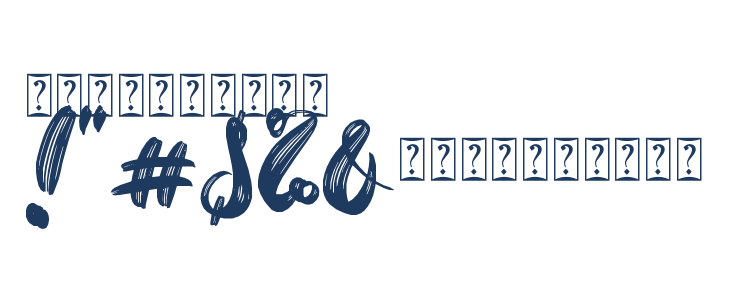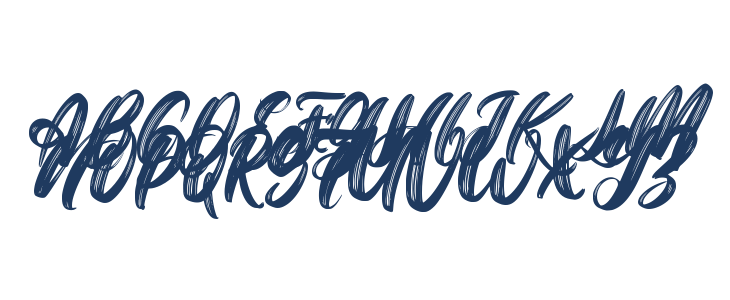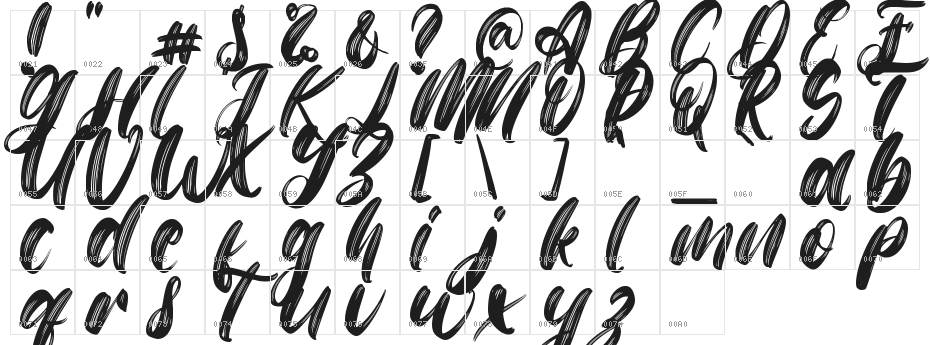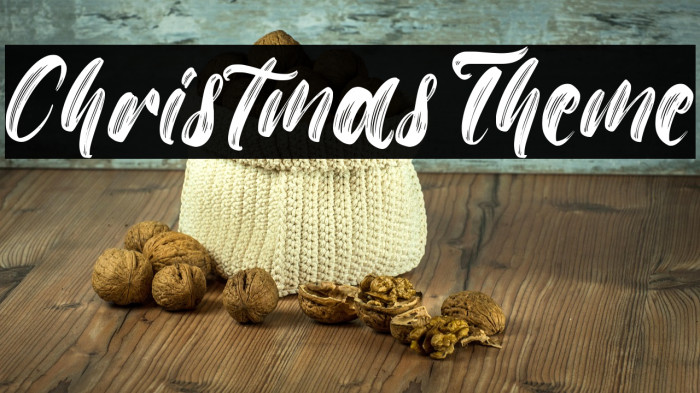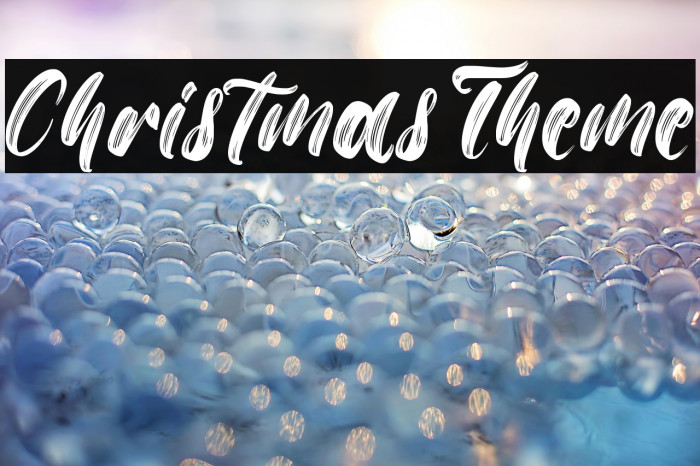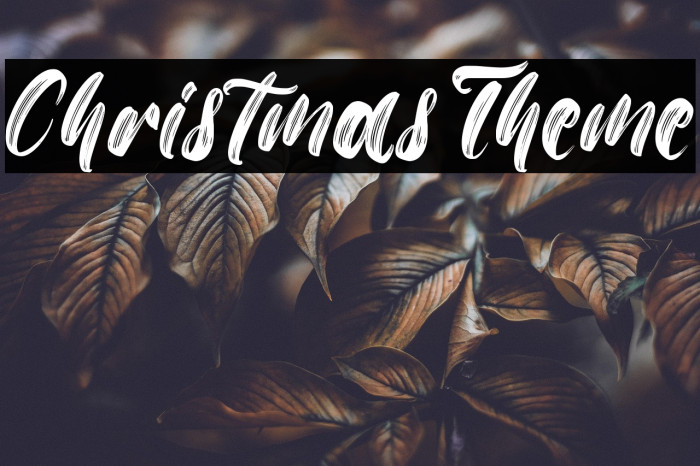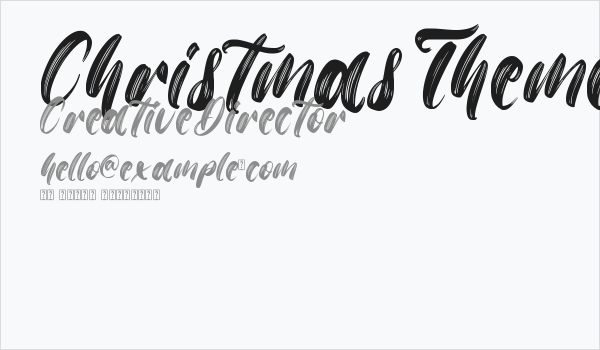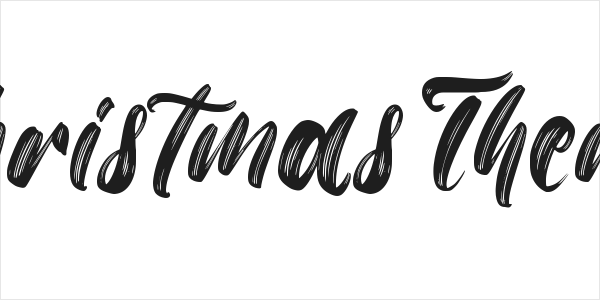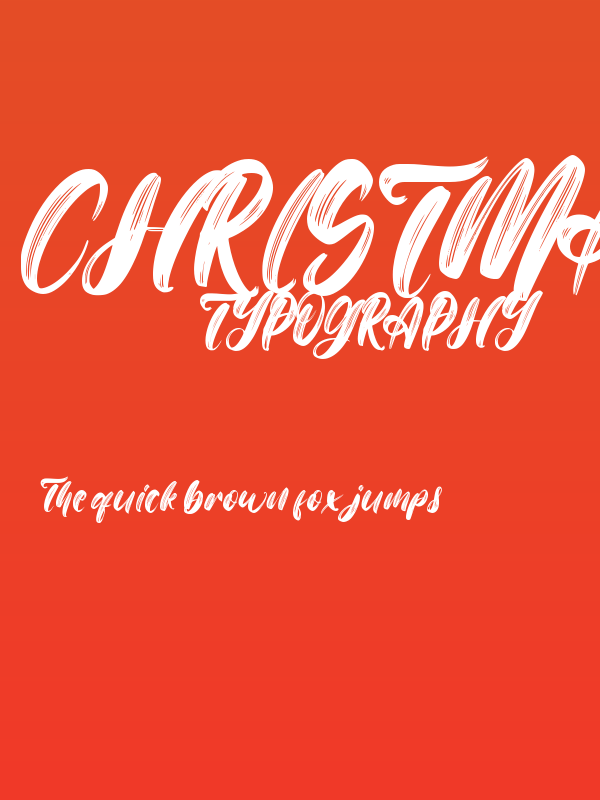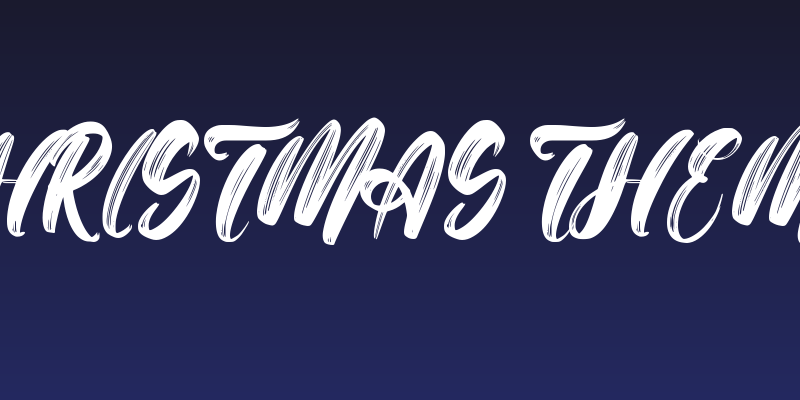
Christmas Theme Font
Christmas Theme Description
A bold, expressive script font with brush-like strokes and a hand-lettered appearance, featuring dramatic swashes and varying stroke thickness for a festive, energetic look.
| Overall Style | Decorative, Festive, Handwritten |
| Use Case | Headlines, Logos, Greeting cards, Decorative text |
| Proposed Projects | Holiday cards, event invitations, seasonal branding, decorative posters, festive packaging. |